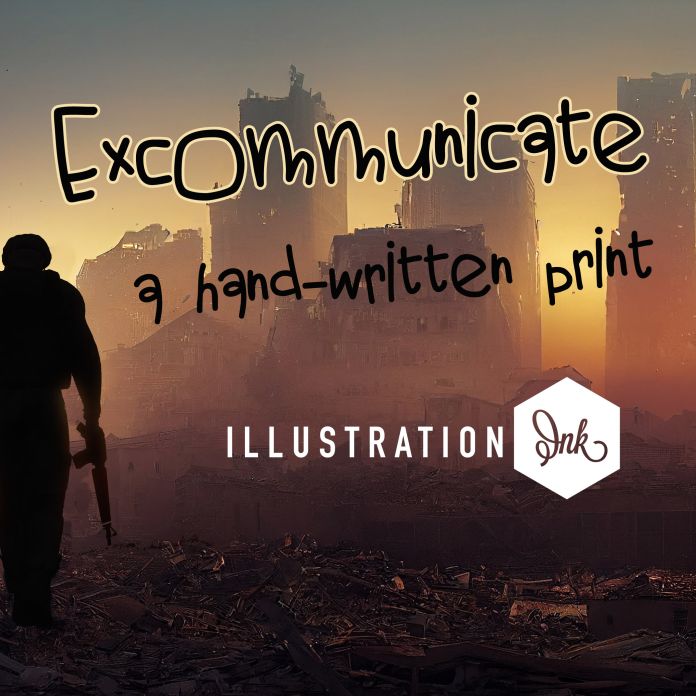
This hand-written font has three versions in this bundle. Bold, regular and light. It is a fun font with mis-sized lettering and a bouncy baseline. Some of the characteristics of handwritten fonts include: The letters are not perfectly uniform in size or shape. There may be slight variations in the spacing between letters and words. The font may have a "wiggly" or "squiggly" appearance. The font may be difficult to read at small sizes. Handwritten fonts can be a great way to add a casual touch to your designs. They can also be used to create a sense of nostalgia or whimsy. However, it is important to choose a handwritten font that is appropriate for the project you are working on. A formal handwritten font may not be appropriate for a casual invitation, while an informal handwritten font may not be appropriate for a corporate document.